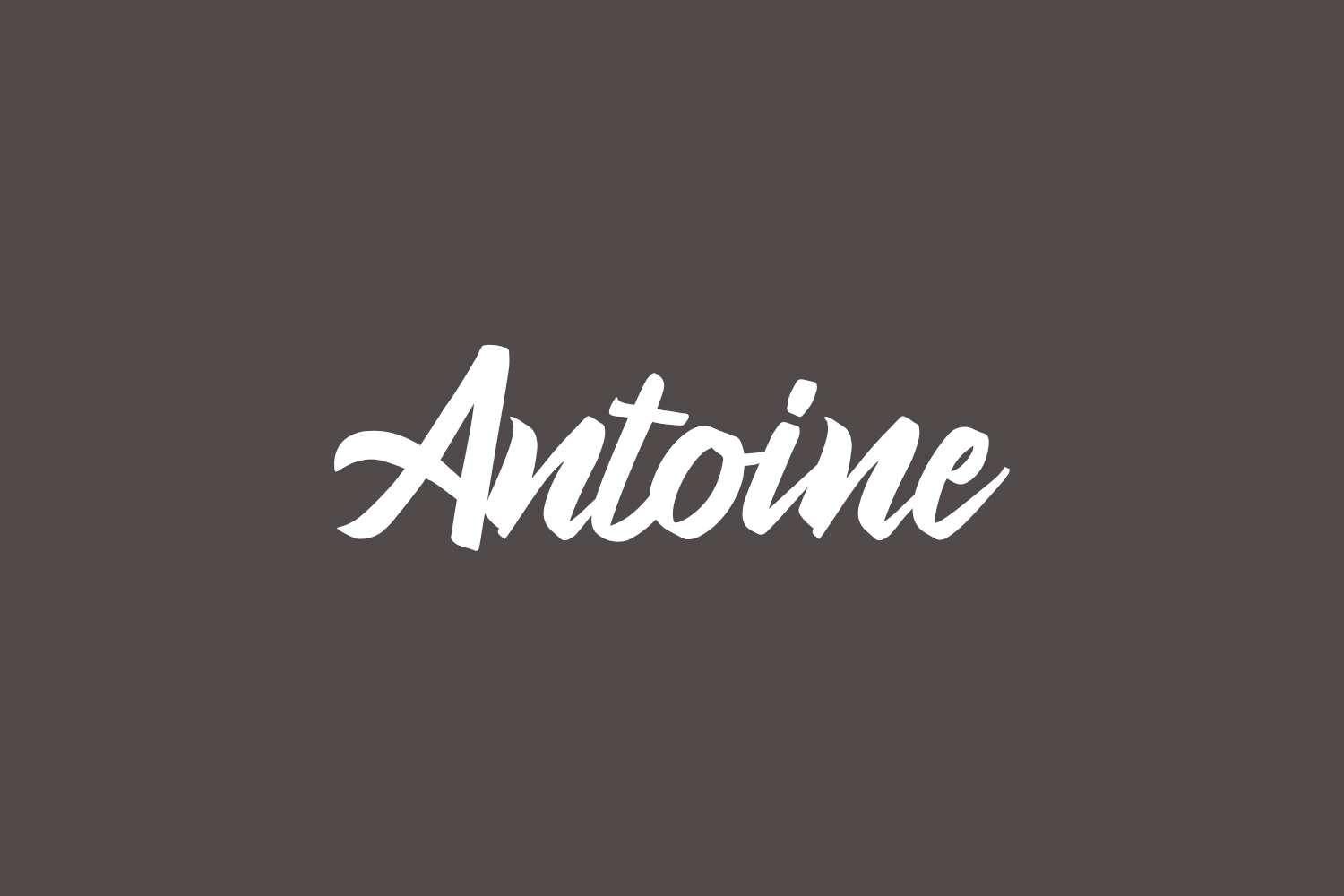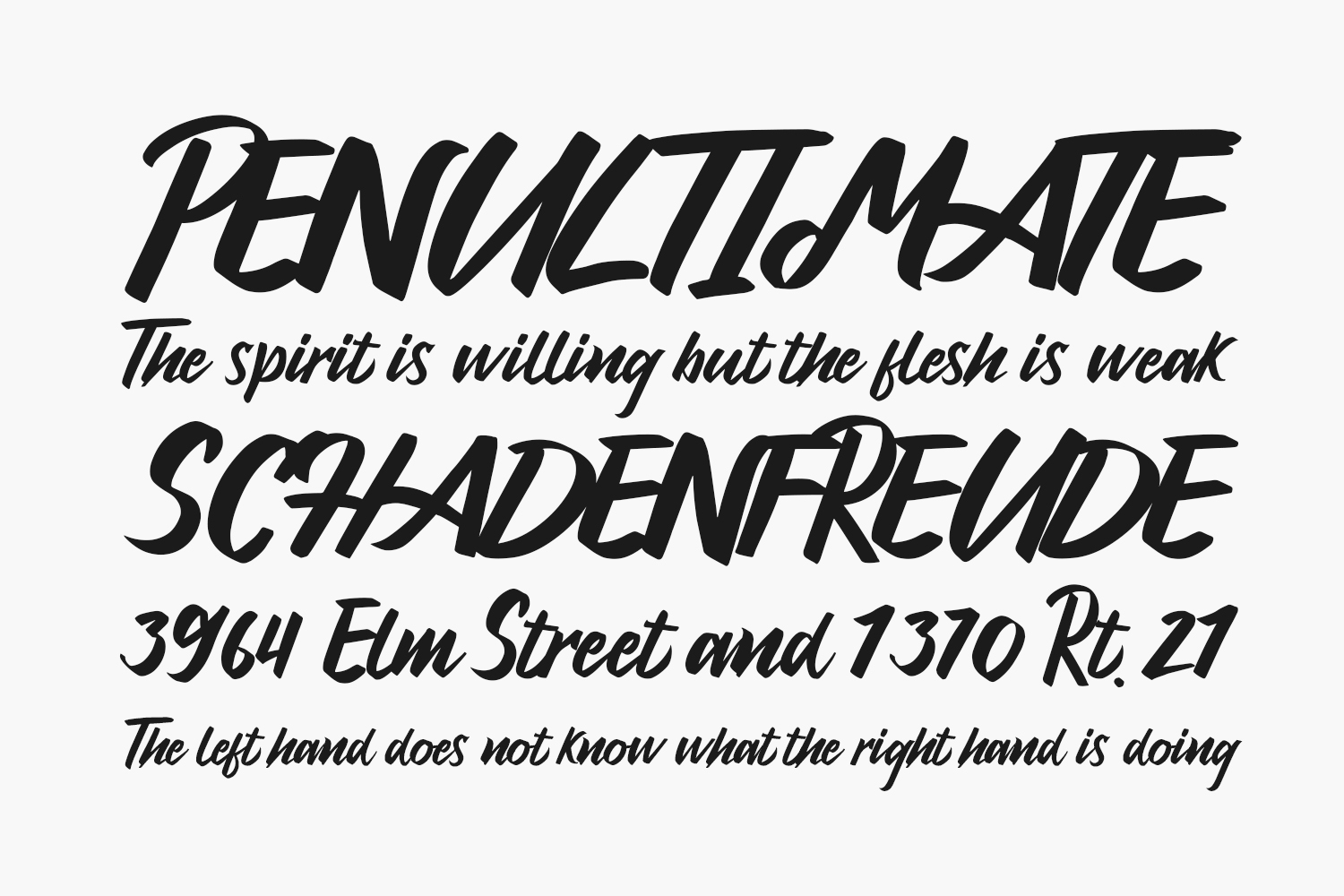
Antoine Free Font is a stylish and incredibly elegant script font. It looks stunning on wedding invitations, thank you cards, quotes, greeting cards, logos, business cards, and every other design which needs a handwritten touch. Antoine Free Font was designed by Typotopia Studio and is free for personal use only. Please purchase the full version for commercial use.